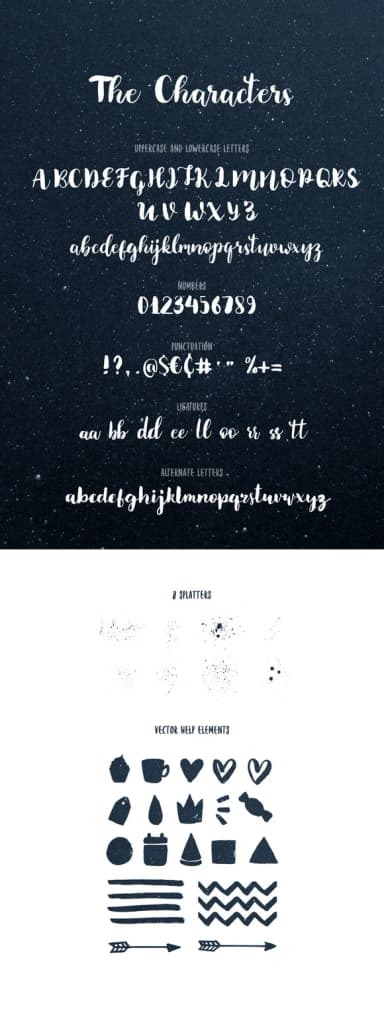
Brownie Font is Kavoon's modern script offering a relaxed, hand-drawn aesthetic that feels genuinely personal without sacrificing legibility. The typeface combines flowing letterforms with confident strokes, creating an inviting warmth that works beautifully when authentic character matters in your design work and visual branding efforts.
This versatile script excels for applications where a human touch enhances the emotional resonance and brand story. Consider using it for artisanal bakery menus and packaging, handmade cosmetics labeling, custom wedding stationery suites, and boutique greeting card designs. The typeface performs equally well on coffee shop window signage, small business social media content, indie product packaging, and event announcement posters where you want genuine character to shine through corporate convention. Its clean curves and well-defined letterforms ensure consistent legibility across various sizes and multiple mediums.
Brownie Font is a script font that shines as a display or heading face. Pair it with a clean sans-serif or serif font for body text — the contrast creates a clear hierarchy while the two styles stay balanced and easy to read.
Brownie Font